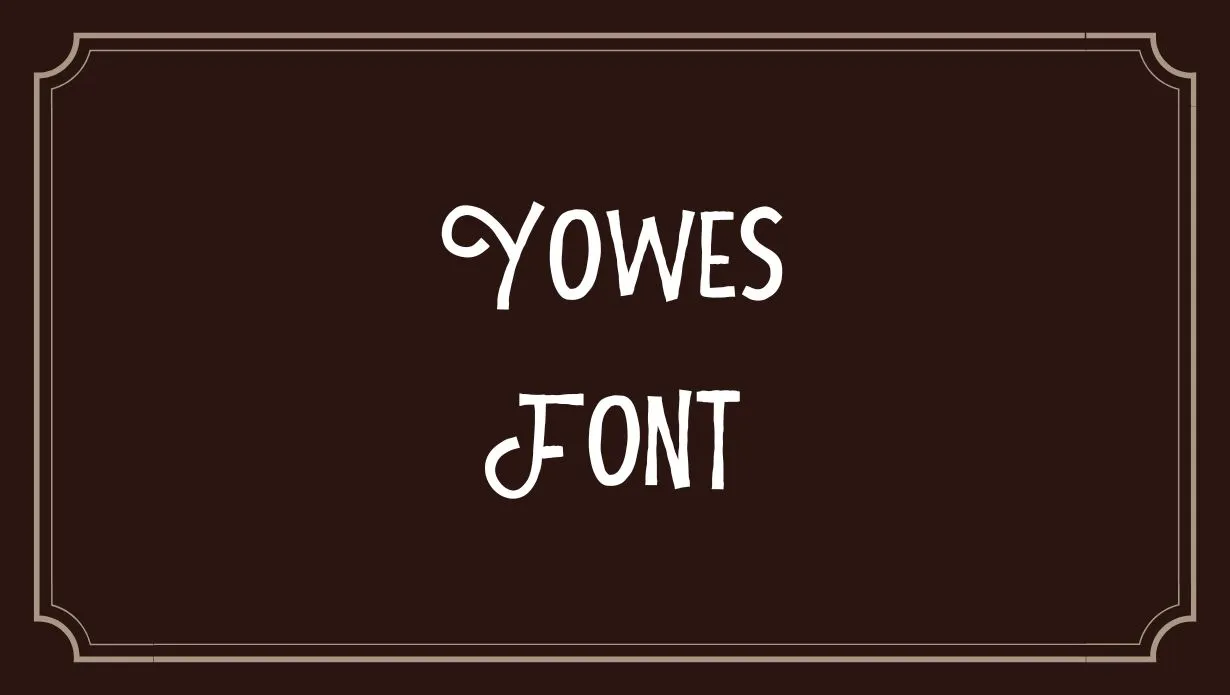
About Yowes Font
Yowes Font is a casual, hand-brush display typeface with cheerful, playful letterforms that bring a dynamic, expressive feel to design work. Its informal, organic strokes make it well suited for children’s content, social media graphics, product packaging, and light-hearted branding. Yowes balances readability with a fun, handcrafted aesthetic that stands out in headlines and logos. The font evokes a youthful and energetic atmosphere, enhancing both digital and print projects with personality.